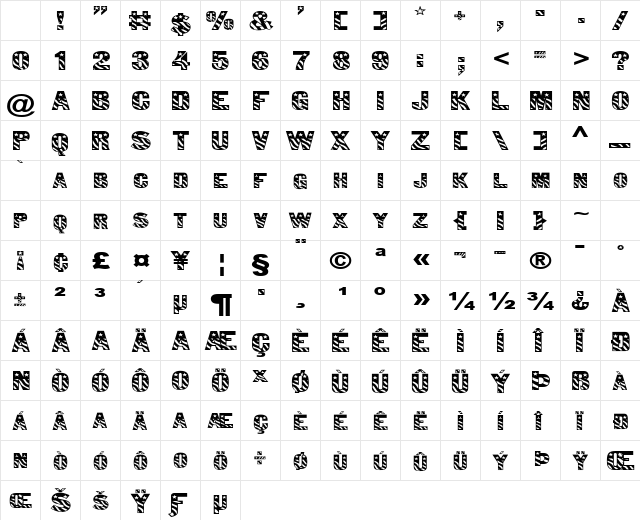
Bunting 1-Extended Normal Free Font
Complete Bunting 1-Extended Normal glyph index. Displaying only characters natively supported by Bunting 1-Extended Normal font.
Design Context for Bunting 1-Extended
Bunting 1-Extended is a composed and adaptable typeface that performs quietly and consistently across a wide range of design contexts.